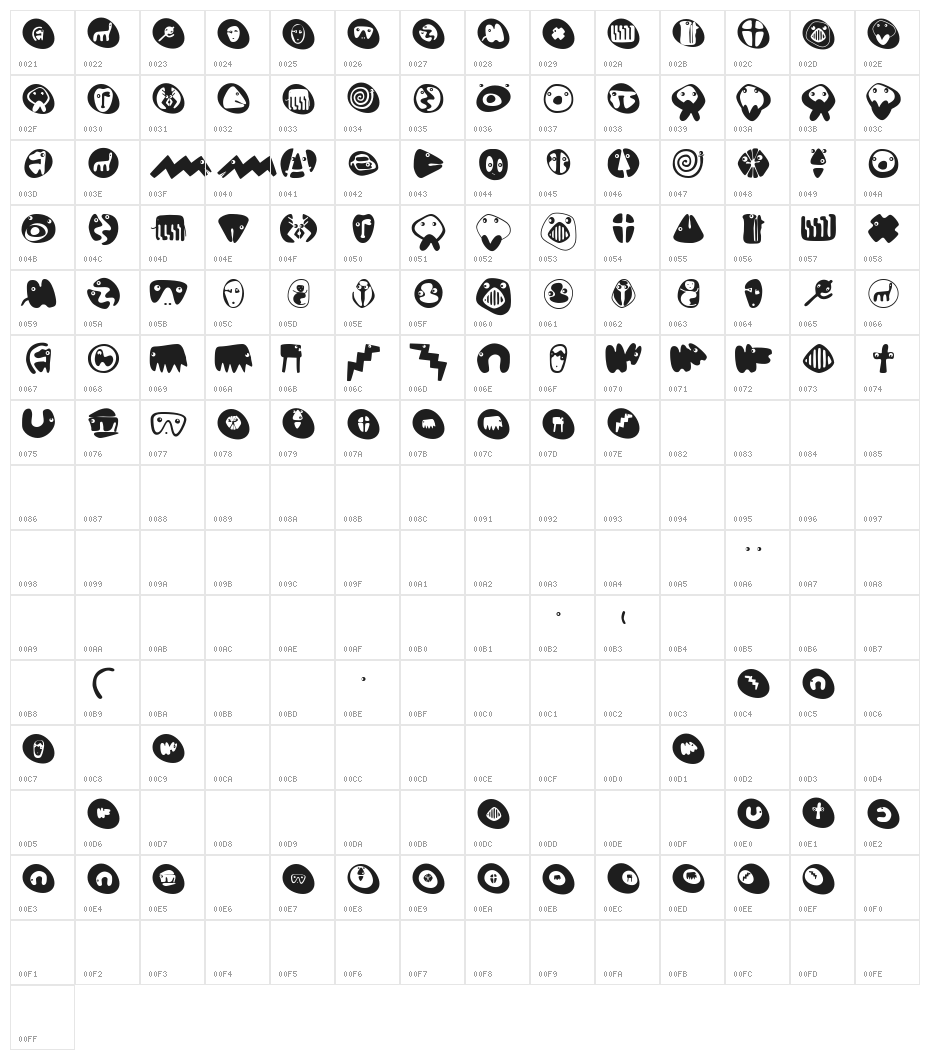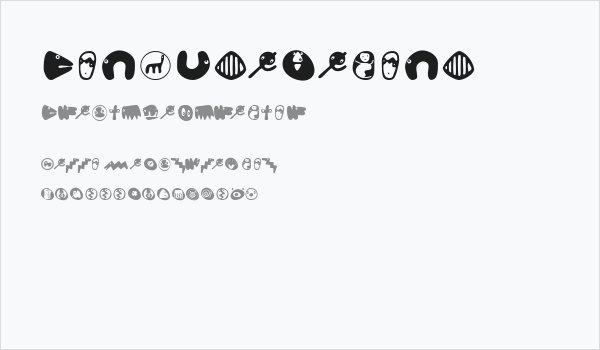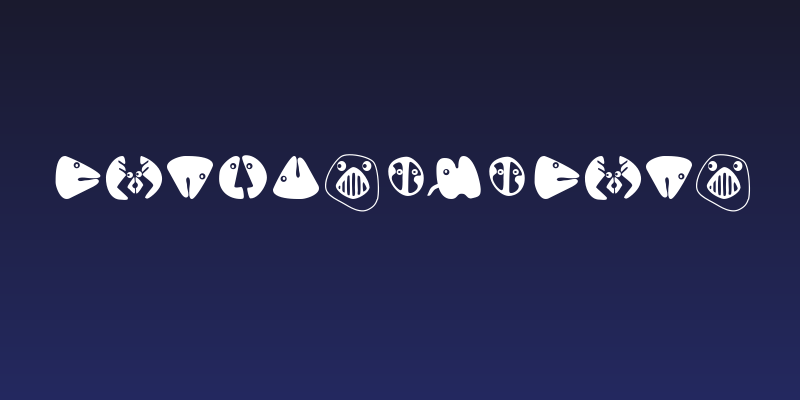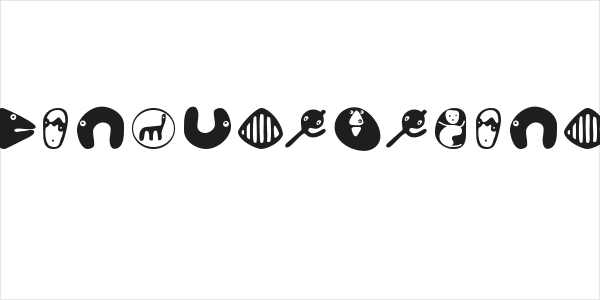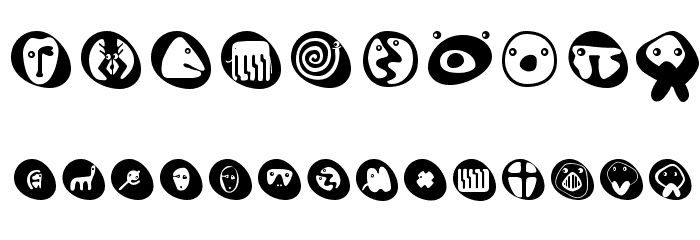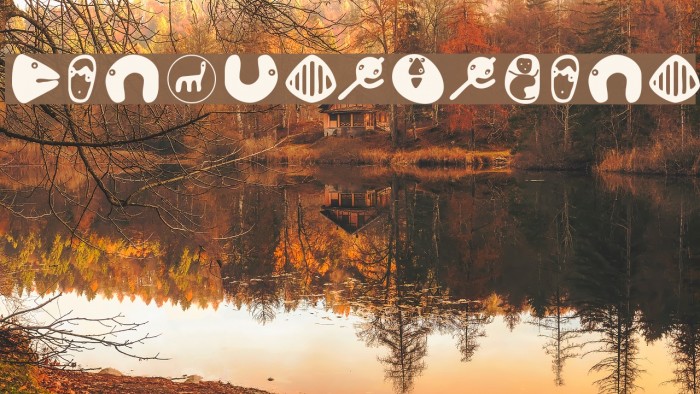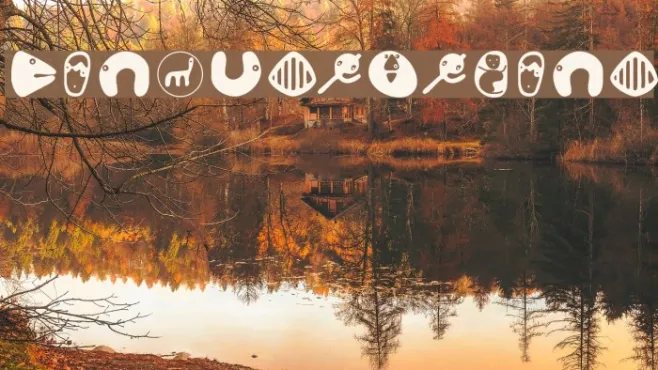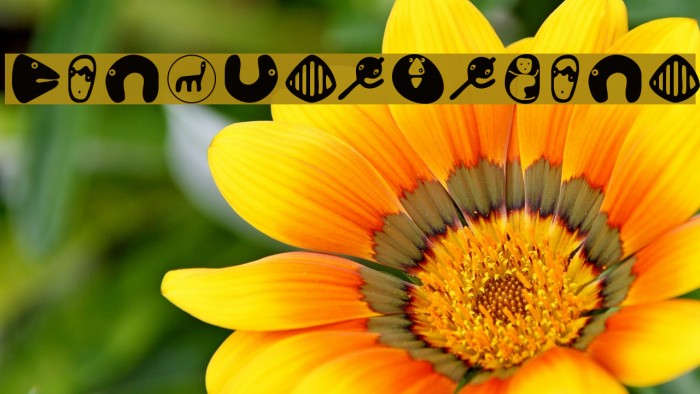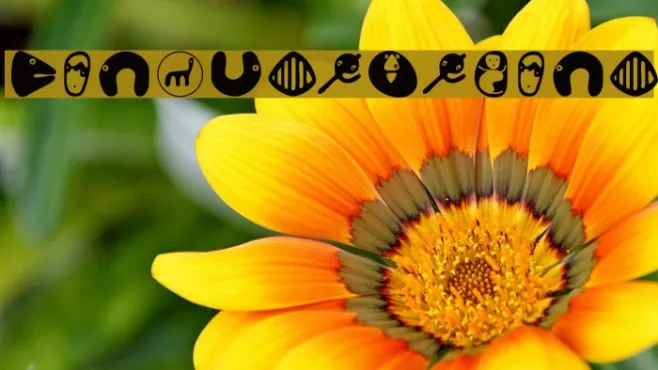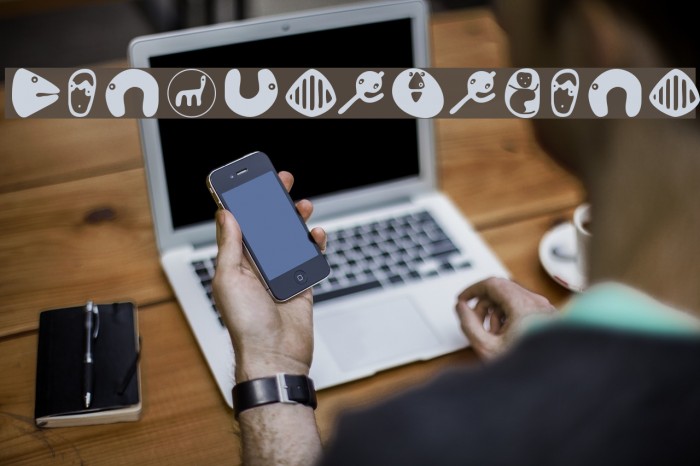
Confuseyecons Font
Confuseyecons Description
A highly decorative and playful typeface where each character is represented by a unique, abstract, and whimsical icon, often resembling faces, animals, or objects within circular or rounded shapes. The glyphs are bold, irregular, and visually dense, prioritizing expressive illustration over traditional letterform clarity.
| Overall Style | Decorative, Playful, Abstract |
| Use Case | Logos, Posters, Titles, Artistic projects |
| Proposed Projects | Children’s books, creative posters, party invitations, branding for playful products, art projects, experimental design. |